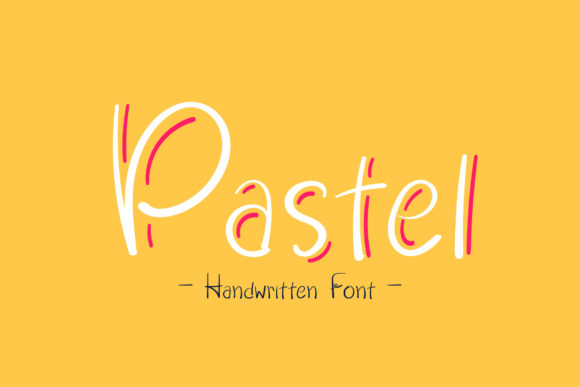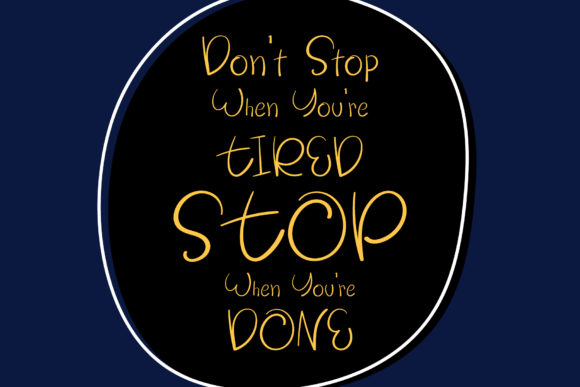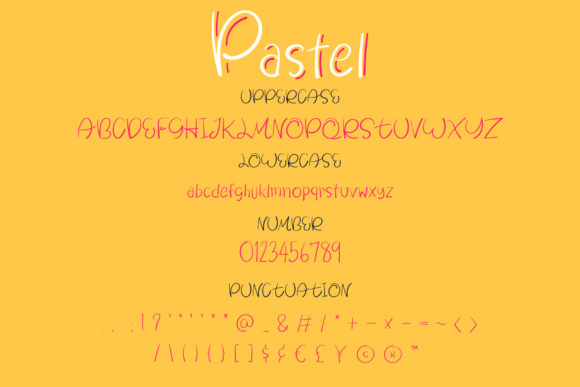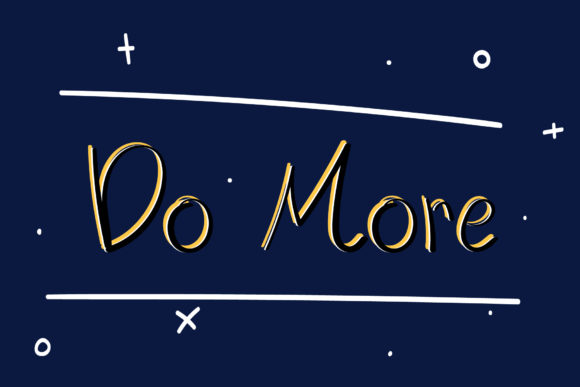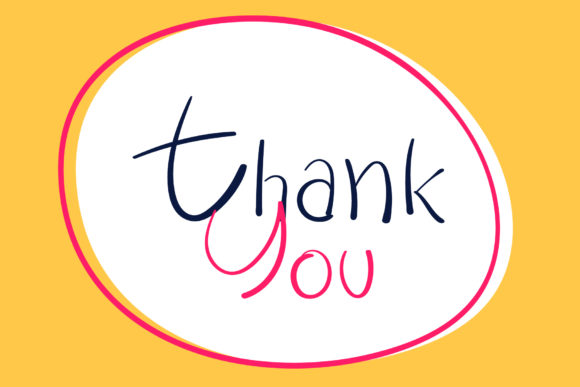
Pastel Font
About Pastel Font
Pastel is a stylish handwritten font. Due to its versatility, it will elevate a wide range of design projects to the highest level, be it branding, headings, wedding designs, invitations, signatures, logos, labels, and much more! The only limit is your imagination!